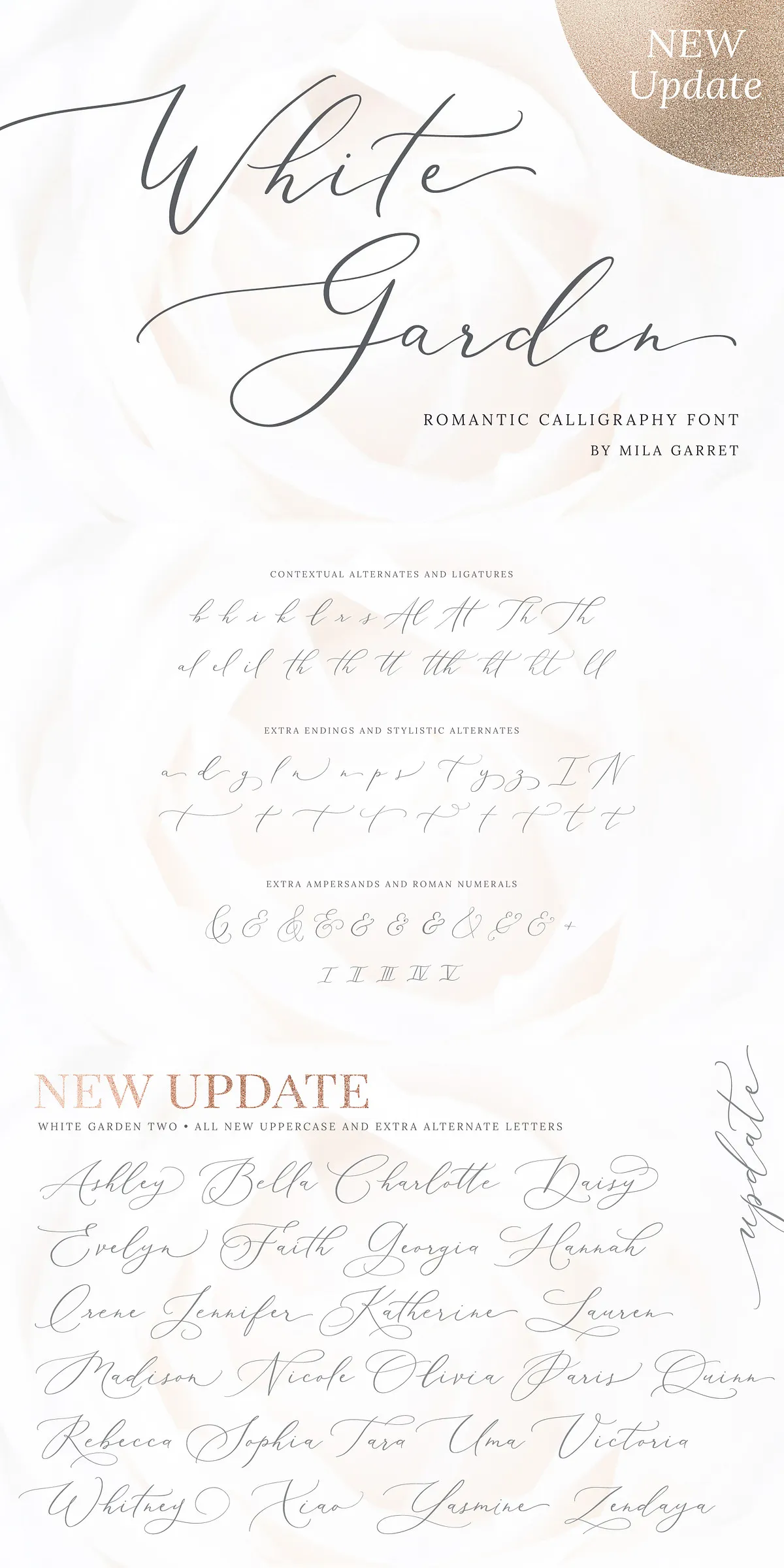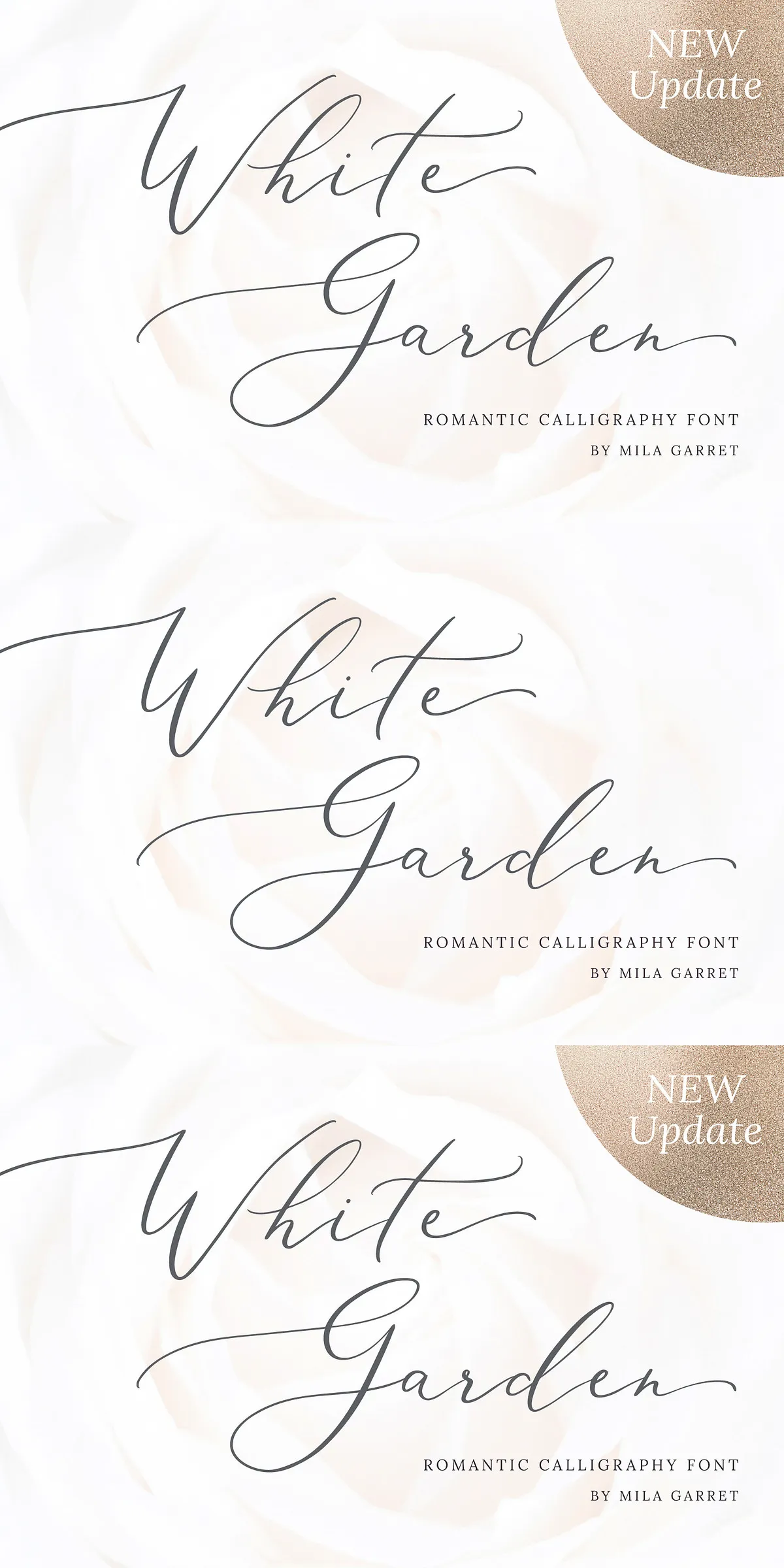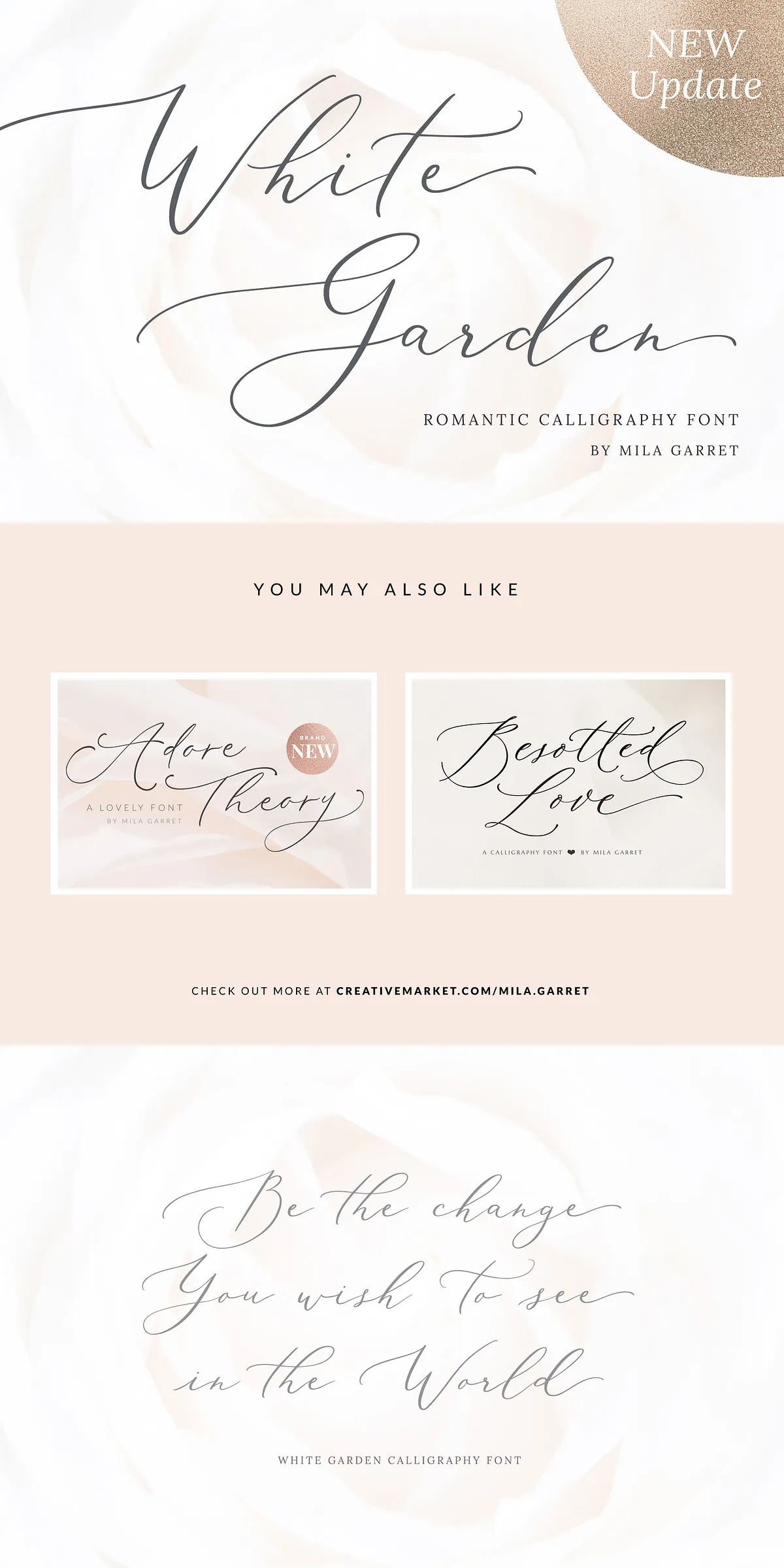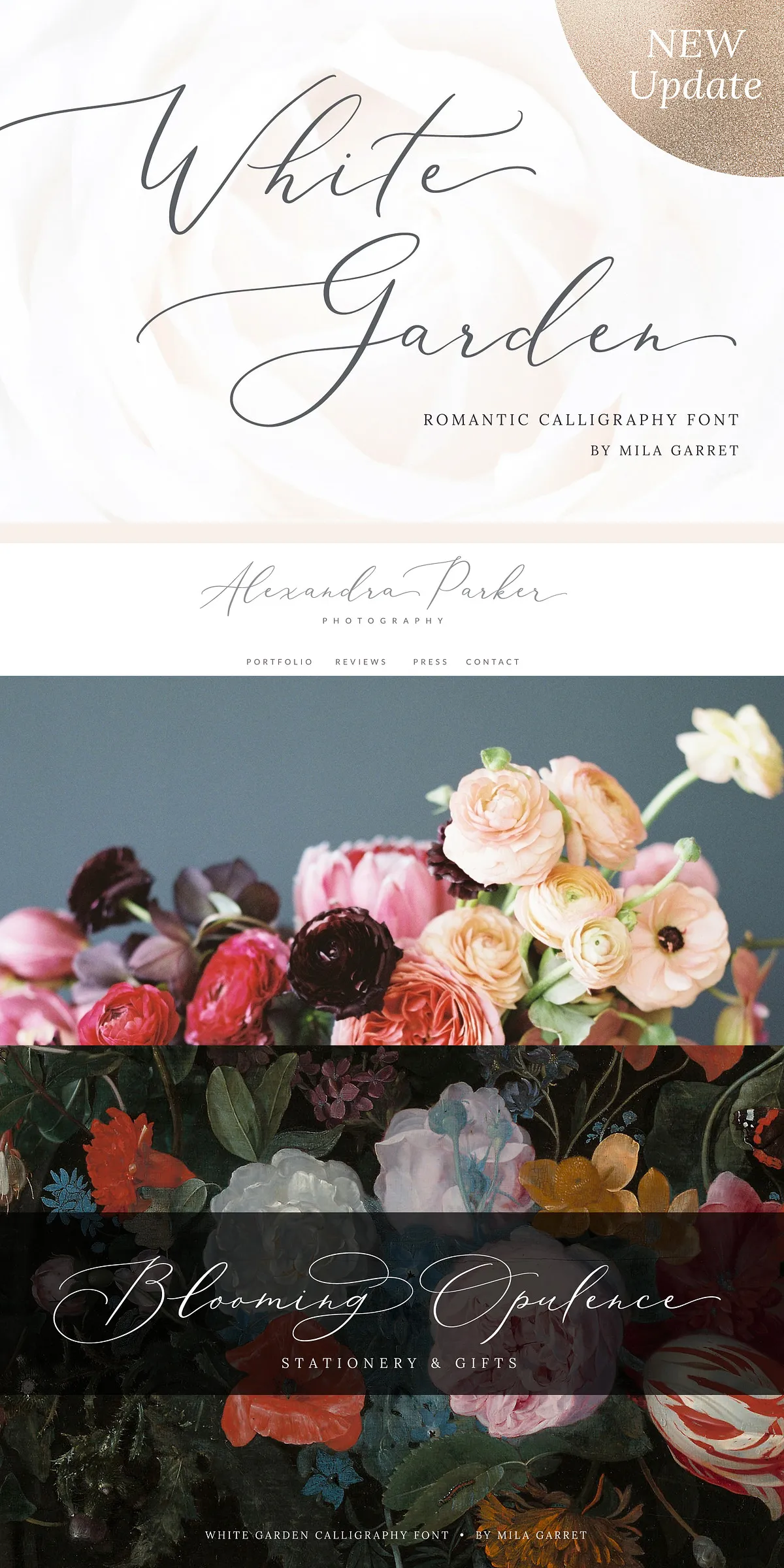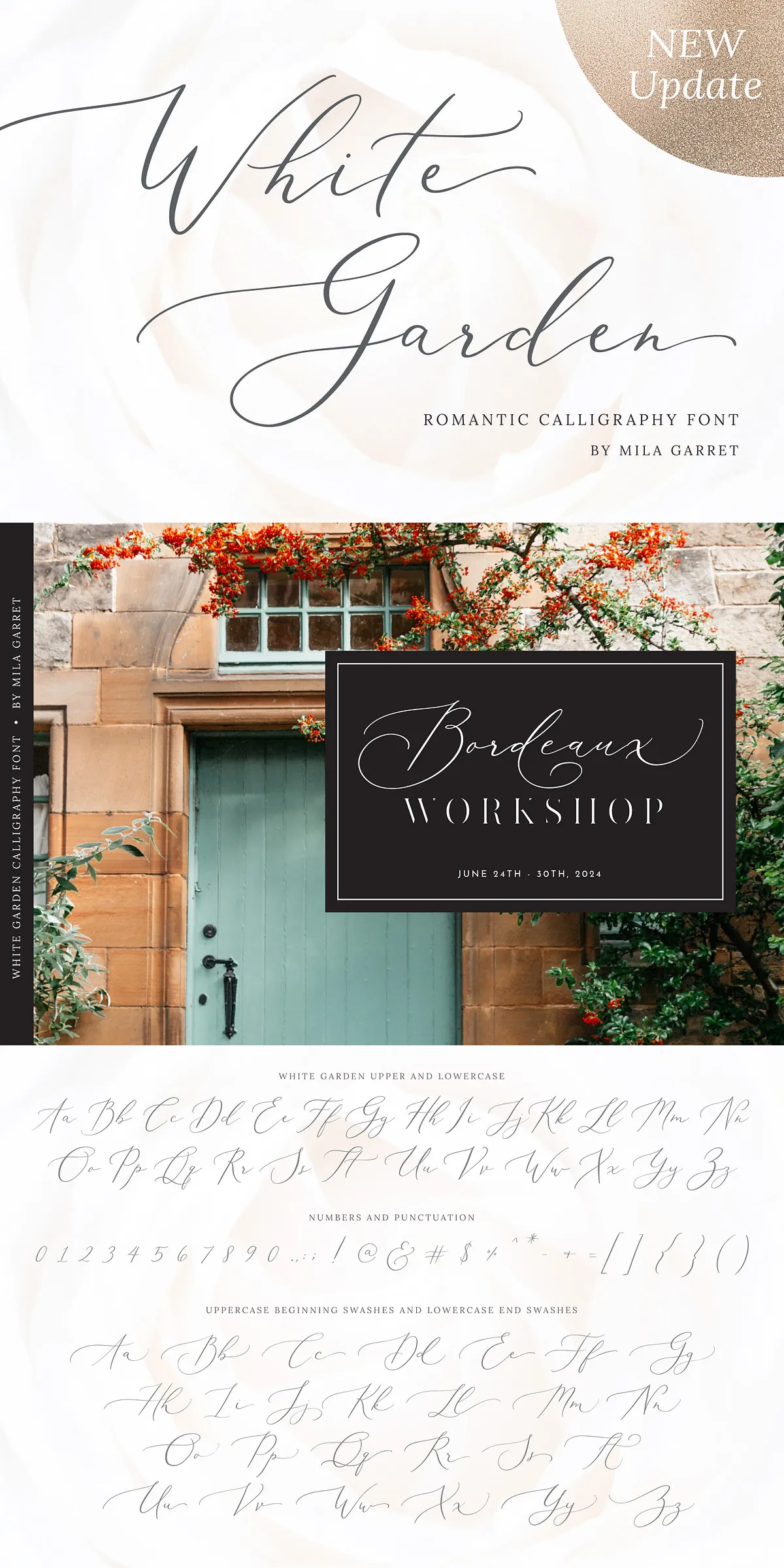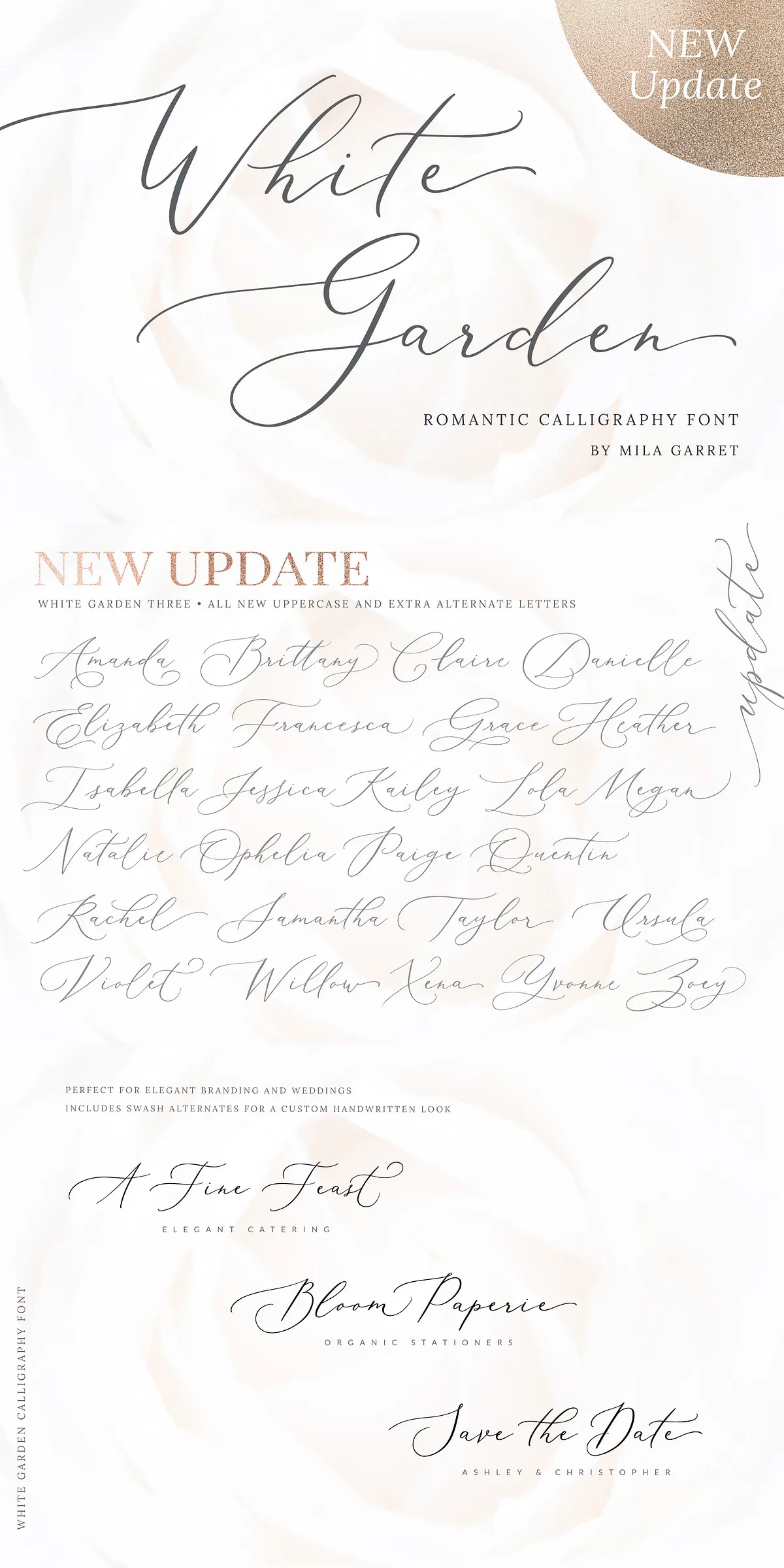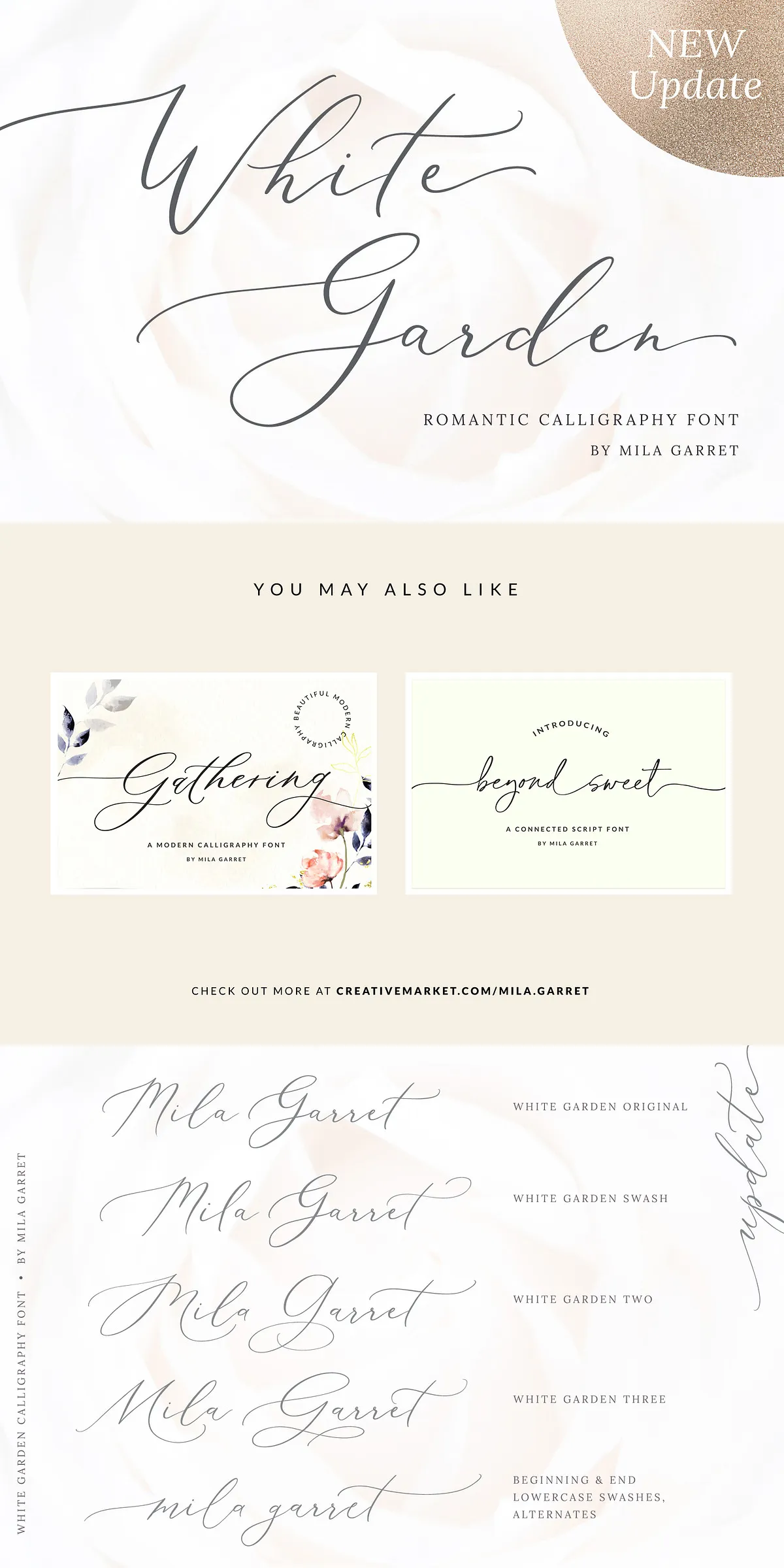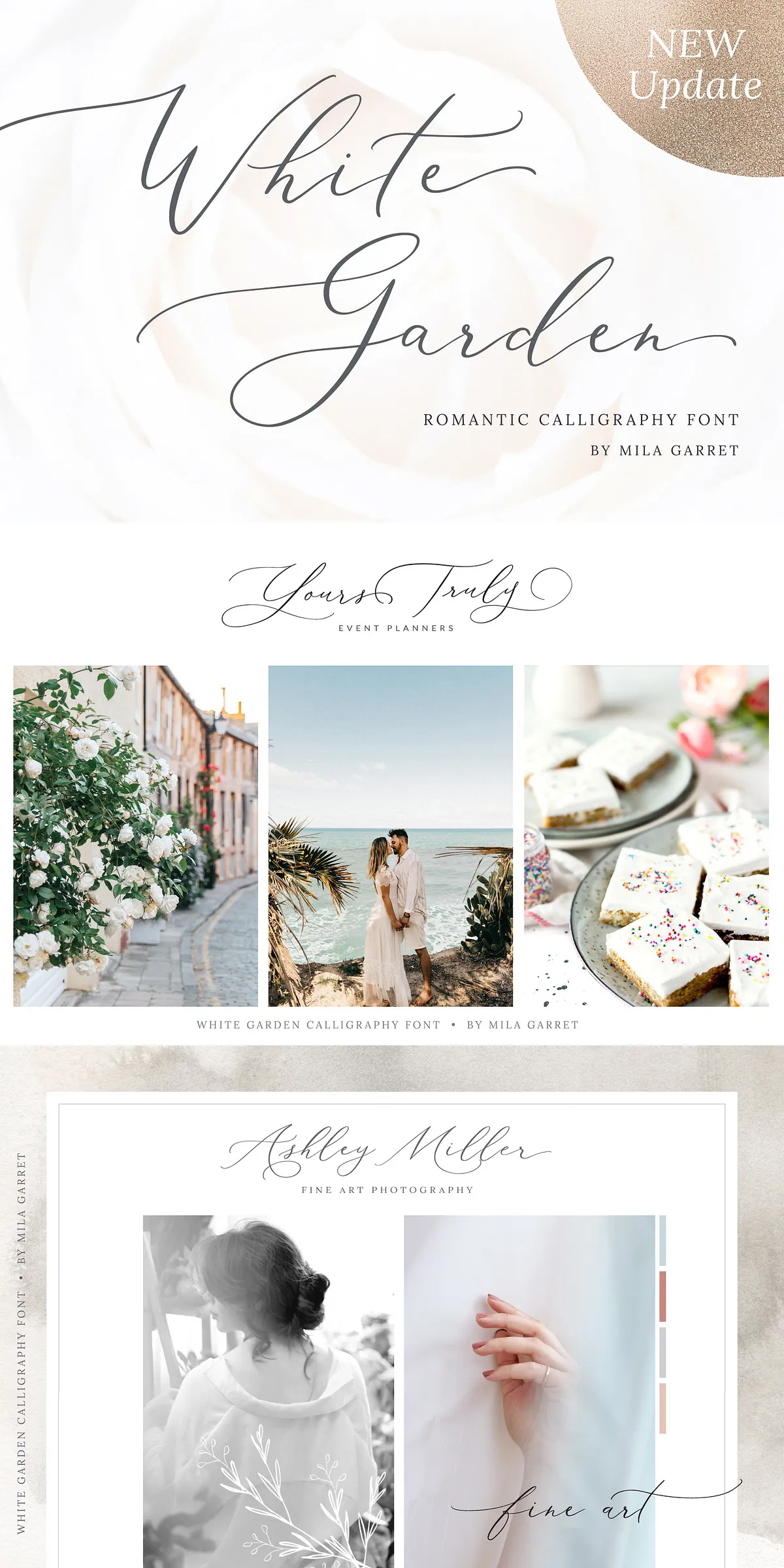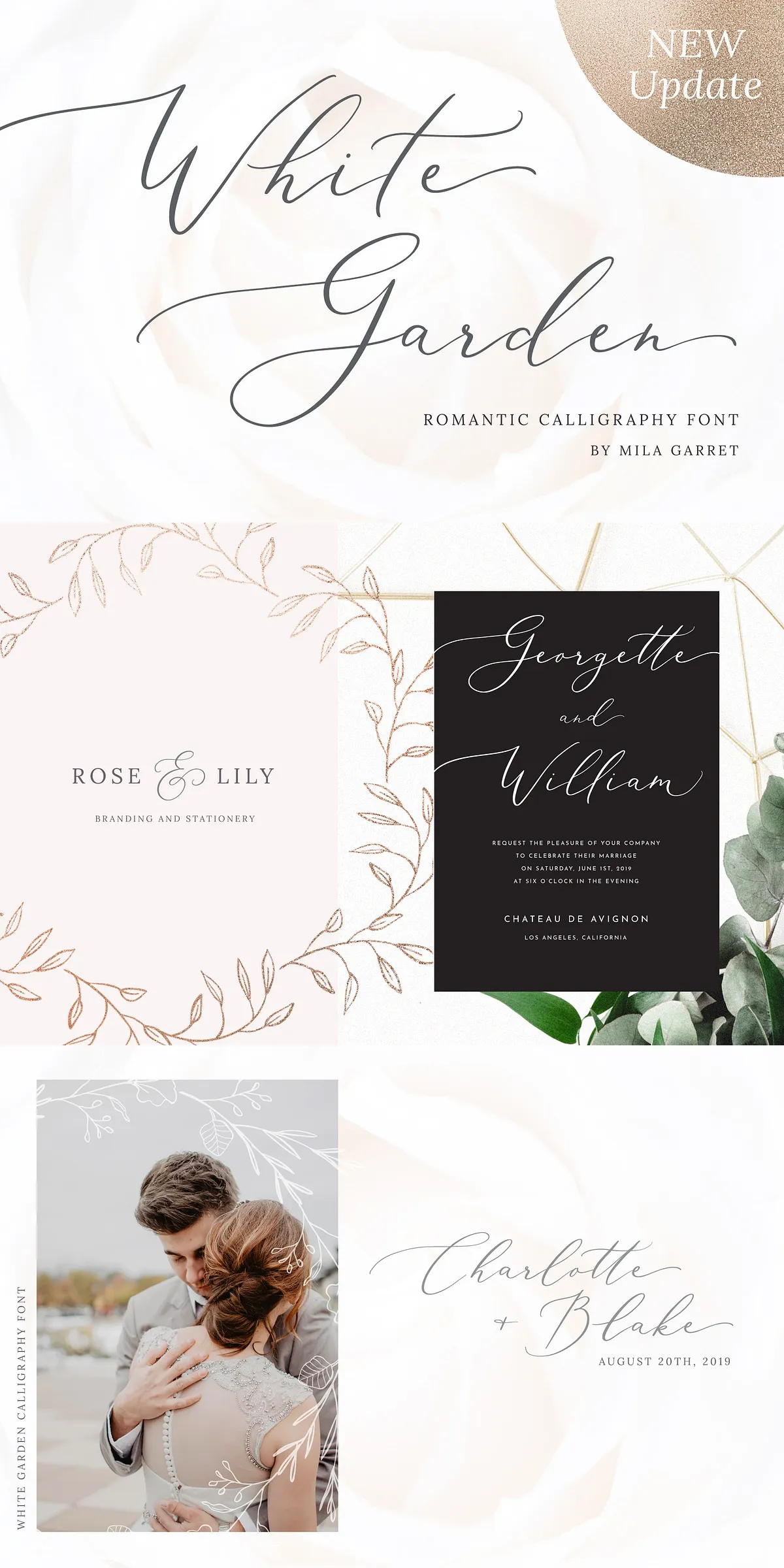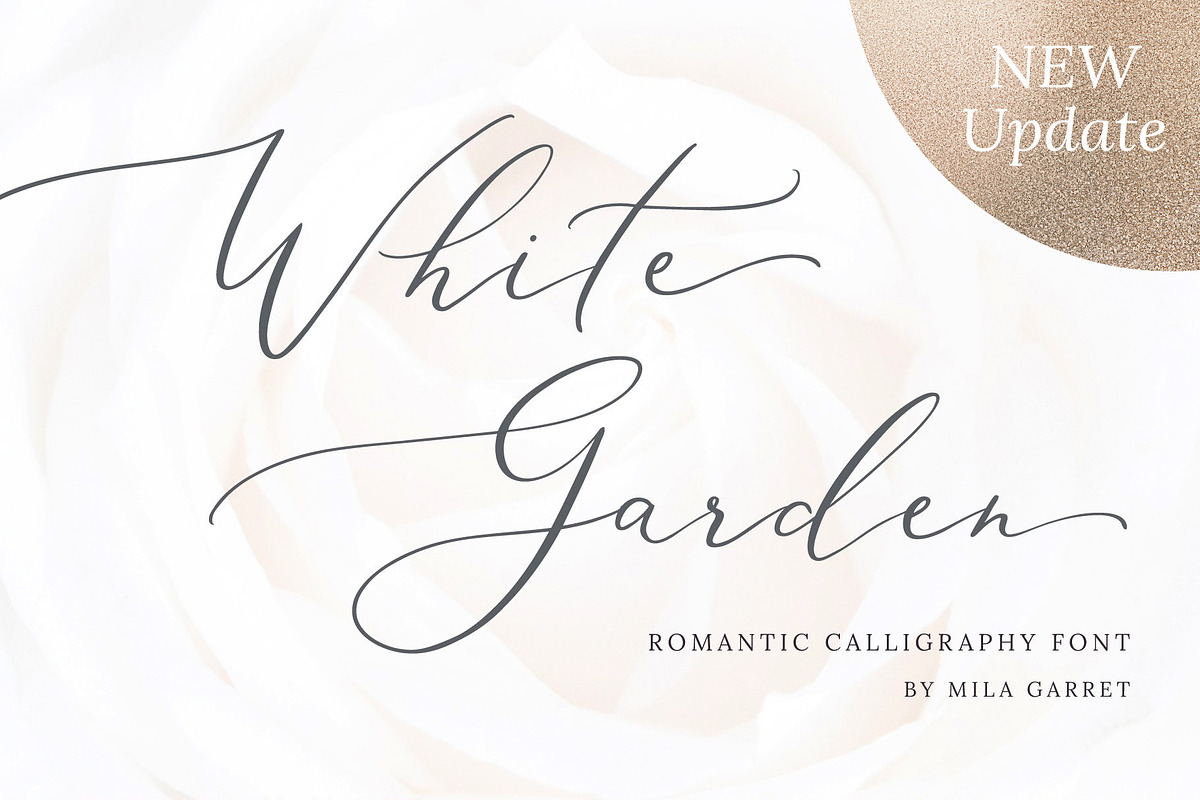
Unleash the refined beauty of White Garden Font — a meticulously crafted calligraphy typeface designed for creators who demand sophistication, fluidity, and a touch of timeless luxury. Whether you’re building a high-end brand identity, designing wedding invitations, creating premium packaging, or enhancing digital visuals, White Garden delivers an authentic handwritten elegance that stands out.
Why White Garden Is the Go-To Calligraphy Font for Premium Projects
In today’s design landscape, authenticity and craftsmanship matter more than ever. White Garden answers that need with a script that mimics the natural flow of a master calligrapher’s pen — expressive, graceful, and deeply personal. Its soft yet confident strokes bring warmth and charm to every project, whether used for a minimalist logo or an elaborate wedding suite. This is not just a font; it’s a statement of taste and attention to detail.
Advanced Features for Unmatched Creative Control
White Garden goes beyond basic lettering. It comes packed with professional-grade typographic tools that empower you to create custom, one-of-a-kind text treatments:
- Full Standard Alphabet & Punctuation – Complete coverage of uppercase, lowercase, numbers, and punctuation with consistent stylistic alignment.
- Four Sets of Alternate Characters – Two dedicated sets of alternate capitals, plus extra swashed beginning and ending forms for lowercase letters, allowing dynamic variation in your compositions.
- Swash & Ligature Variety – High-quality swash endings and contextual ligatures provide natural, flowing transitions between letters for a hand-crafted appearance.
- Stylistic Alternates & Bonus Characters – Includes 11 distinctive ampersand styles — ideal for logo customization — and special numerals perfect for names like “John Smith III” or “Emma Lee Jr.”
- Standard & Wide Versions – Choose between compact, classic proportions or a bolder, extended width for maximum visual impact in headlines and banners.
Perfect for Creative Professionals Across Industries
From bridal boutiques to luxury product lines, White Garden adapts seamlessly to high-end projects:
Wedding & Event Stationery
Design invitations, save-the-dates, menus, seating charts, and love notes that feel deeply personal and artistically polished. The calligraphic quality adds emotional depth, turning simple text into heirloom-worthy pieces.
Brand Identity & Logo Design
Build a distinctive visual presence for boutiques, spas, fashion labels, or artisan brands. Use the ampersand styles, unique alternates, and swash options to create a custom logo that feels hand-drawn and distinctive.
Packaging & Product Design
Add luxury appeal to boxes, labels, and tags. White Garden transforms ordinary packaging into premium, collectible items — perfect for skincare, candles, jewelry, or gourmet food brands.
Web & Digital Design